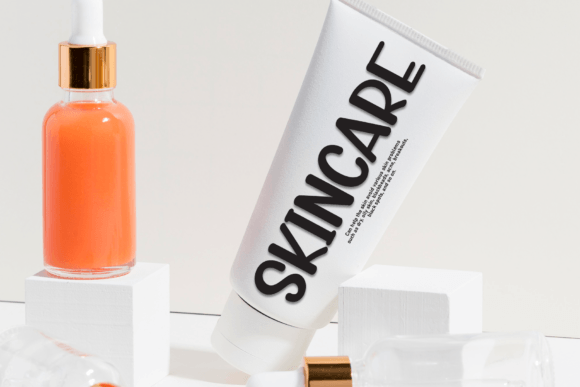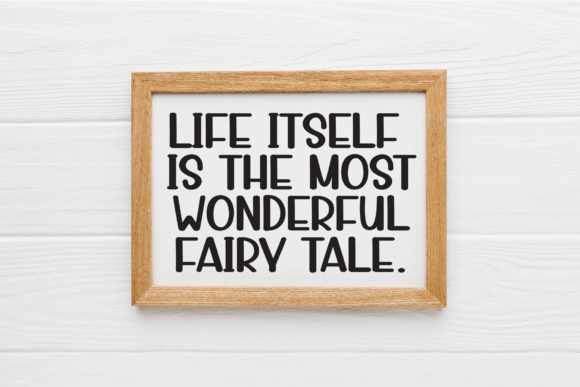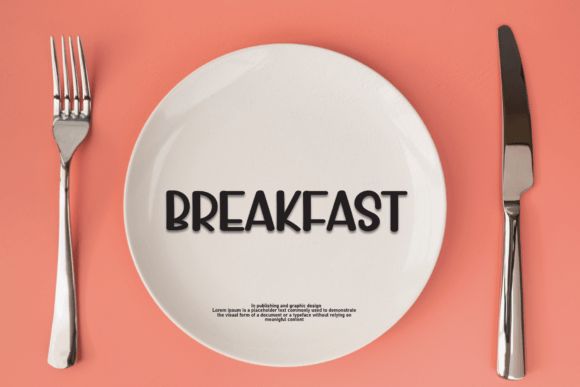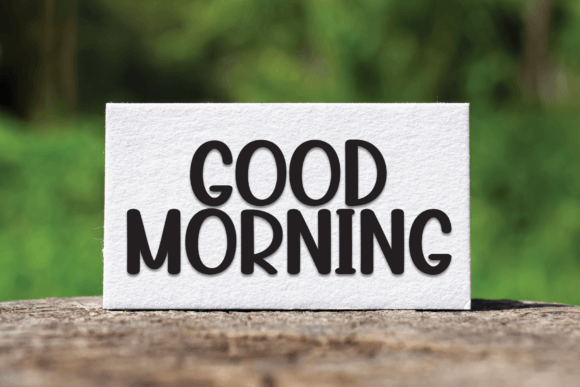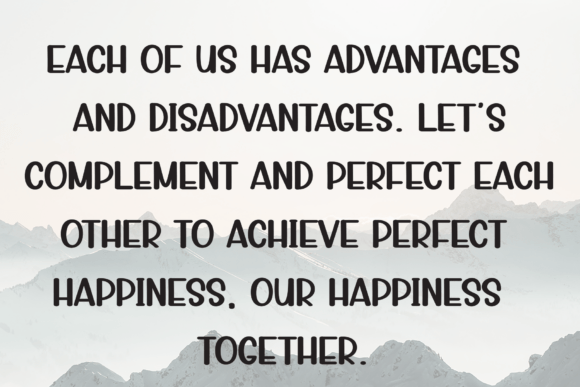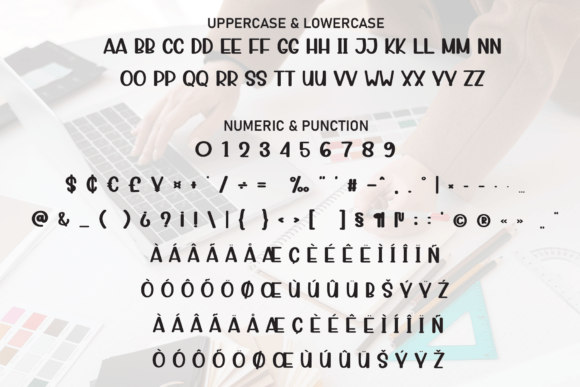
The Power of Branding Font: Elevate Your Design with Clean and Modern Typography
I’ll never forget the time I was working on a logo design project for a new coffee shop. My client wanted a modern and friendly vibe, but I was struggling to find the right font to convey that message. That’s when I stumbled upon the Branding Font, and it changed the game. With its clean and easy-to-read design, bold letters that grab attention, and simple yet effective style, it was the perfect fit for the project. In this article, I’ll share my experience with the Branding Font, its features, and how to make the most of it in your designs.
An Honest Review of Branding Font
• ✨ Clean and easy to read: The Branding Font is perfect for body text and headlines, making it a versatile choice for any design project.
• ✅ Bold letters that grab attention: The font’s bold weight is perfect for logos, signs, and headlines that need to make a statement.
• 💡 Simple and modern design: The font’s simple design makes it perfect for any brand that wants to look modern and friendly.
While the Branding Font is an excellent choice for many design projects, there are a few quirks to keep in mind:
• 🤔 Limited glyphs: The font has a limited number of glyphs, which may not be suitable for projects that require a wide range of special characters.
• ⚠️ Not suitable for body text: While the font is easy to read, it’s not the best choice for long blocks of body text. It’s better suited for headlines, logos, and short paragraphs.
The Story Behind Branding Font
The Branding Font was designed by a team of typographers who wanted to create a clean and modern font that’s perfect for branding and advertising. The font was inspired by the classic sans-serif fonts of the 20th century, but with a modern twist. The designers aimed to create a font that’s easy to read, versatile, and perfect for any brand that wants to look modern and friendly.
Q: What is the Branding Font?
A: The Branding Font is a clean and modern sans-serif font that’s perfect for branding, advertising, and design projects.
Q: What are the best design practices when using the Branding Font?
A: The best design practices when using the Branding Font include using it for headlines, logos, and short paragraphs, and pairing it with other fonts to create contrast and visual interest.